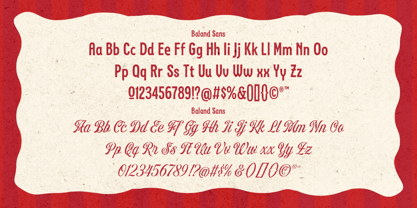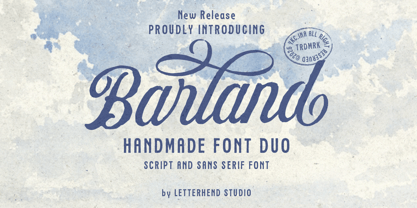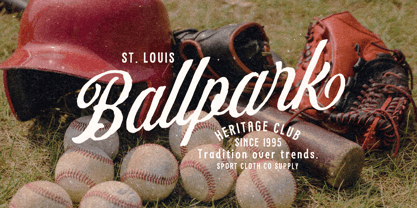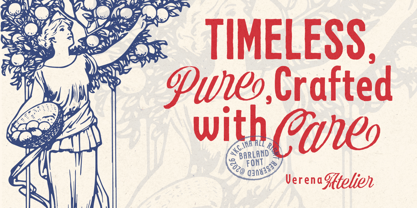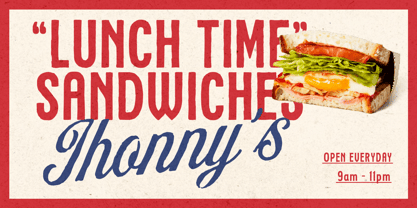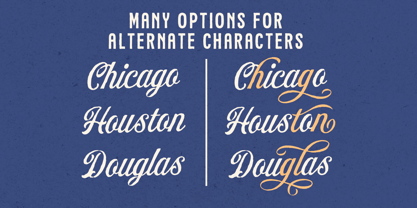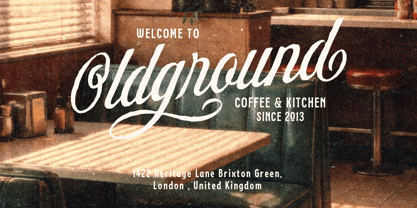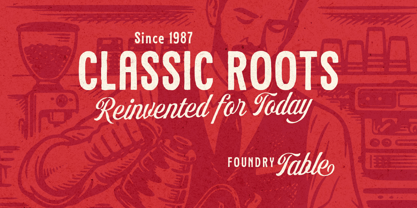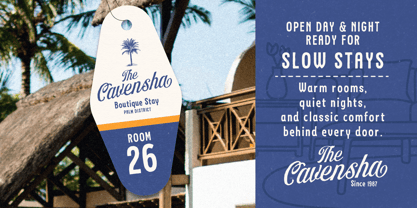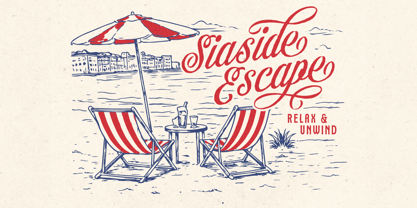
Barland
by Letterhend
The Barland Font Family was designed by Hendry Juanda and published by Letterhend. Barland contains 2 styles and family package options. More about this family
Barland is a handcrafted script and sans pairing inspired by classic sign painting and vintage print textures. The script features flowing strokes, soft curves, and subtle rough details, while the clean sans balances the composition with structure and clarity. It works beautifully for logos, packaging text, posters, labels, social media graphics, and branding projects that need a timeless handmade touch with a friendly retro character. Features : Uppercase & lowercase Numbers and punctuation Alternates & Ligatures Multilingual Support PUA encoded
Designers: Hendry Juanda
Foundry: Letterhend